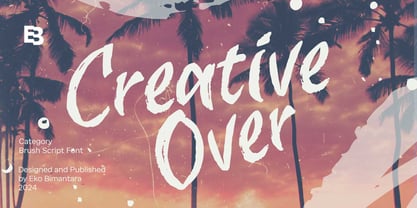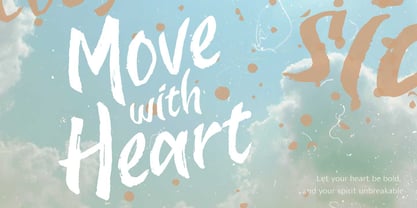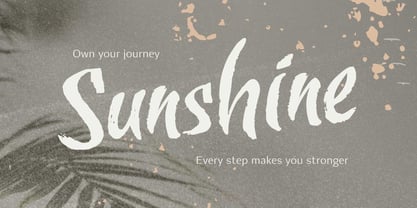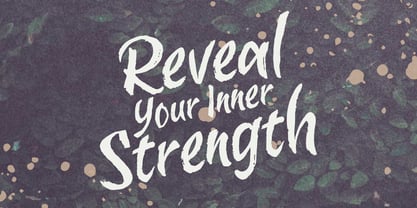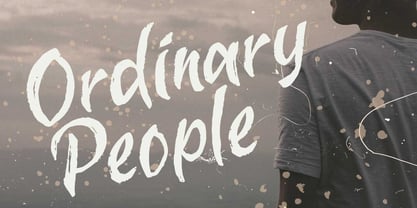
Creative Over
by Eko Bimantara
The Creative Over Font Family was designed by Eko Bimantara and published by Eko Bimantara. Creative Over contains 1 styles. More about this family
Creative Over is an expressive brush script font with realistic brush strokes, perfect for designs that need a bold and raw touch. Its dynamic and rugged style makes it well-suited for branding, product titles, and impactful headers. Ideal for large-size displays, it works seamlessly across various design applications such as websites, brand identities, product packaging, and broad graphic design projects, bringing an authentic and energetic feel to any creative work.
Eko Bimantara is a type designer from Indonesia. Always has an intention to creating fonts that not only look great but also perform across a wide range of mediums and also across wide range of theme. The goal is to give designers the tools to make their projects that speaks a lot with various expression. Eko Bimantara’s fonts are featured in everything from corporate identities to street art posters, and have numerous ideas and concept ready to expand for fresh fonts for years further.